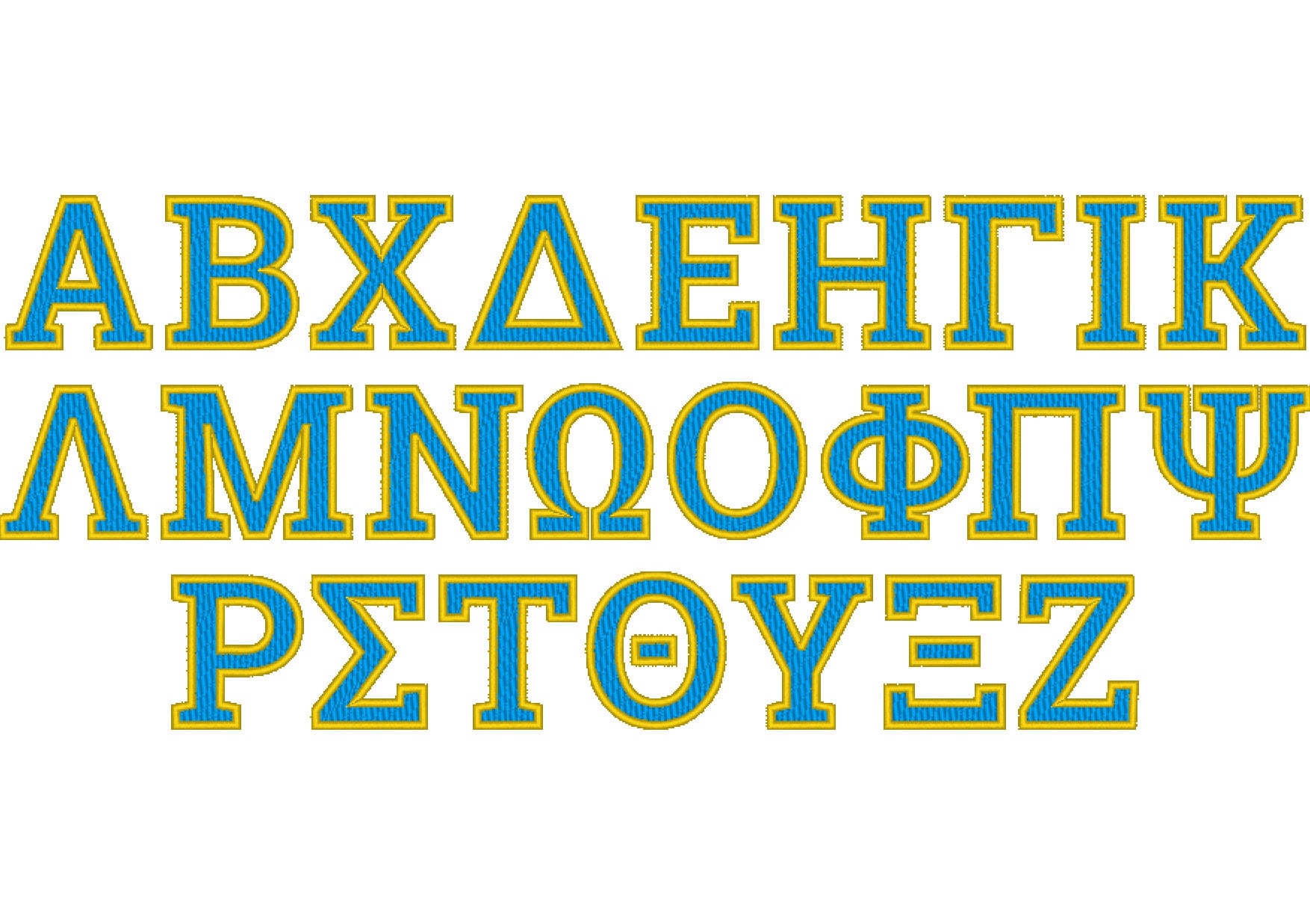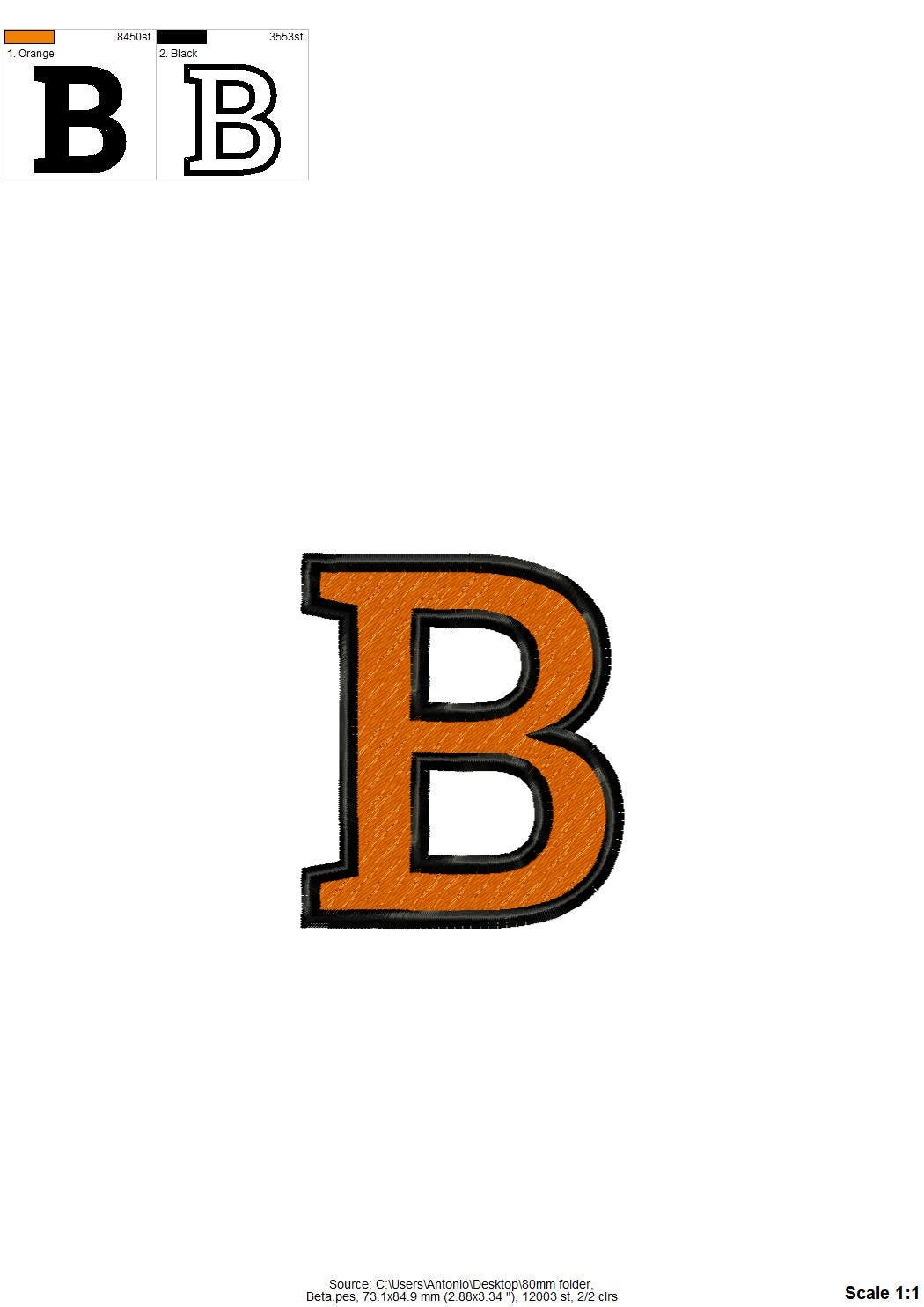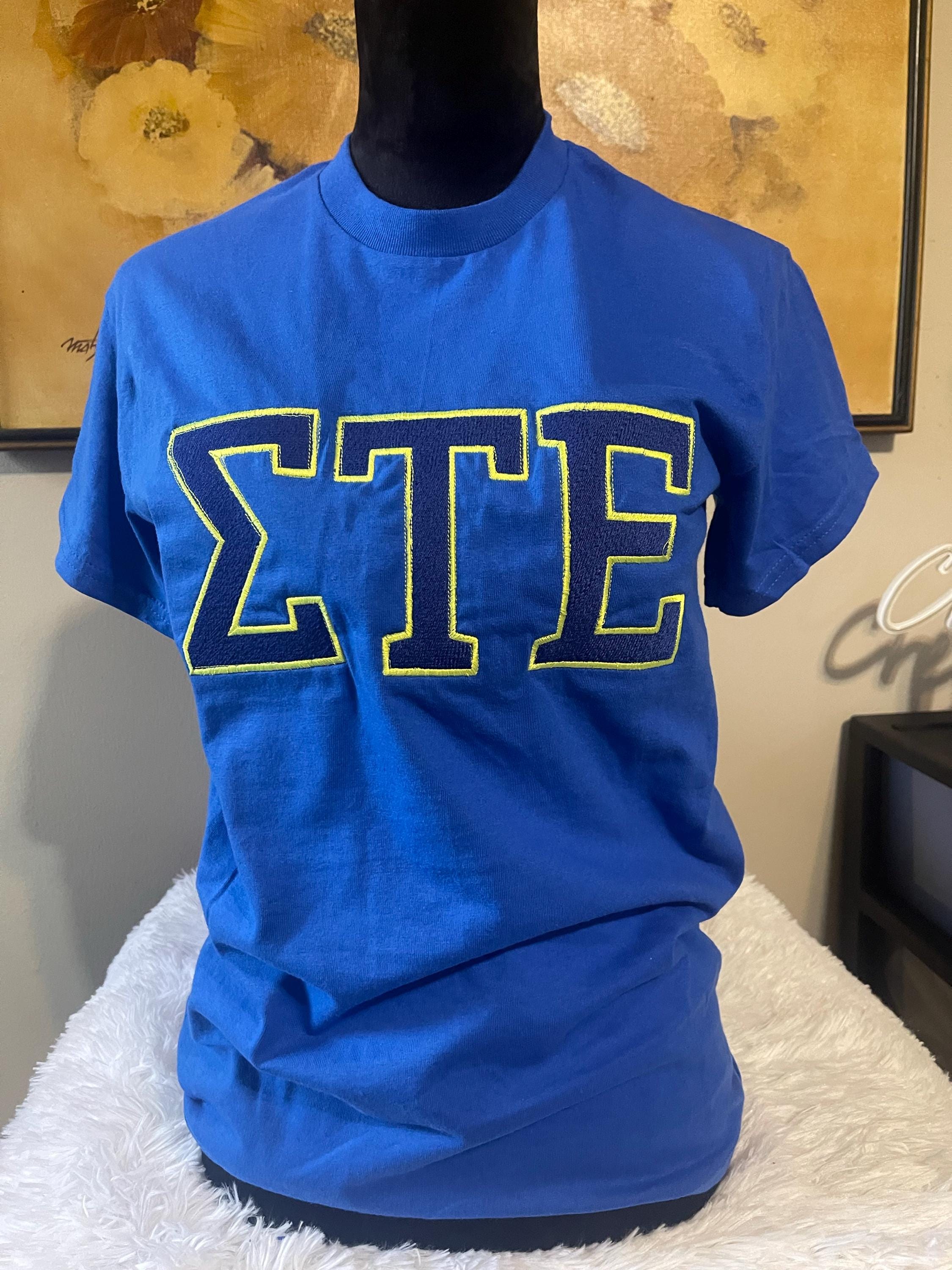
MINI fill stitch 2 colors Greek FONT alphabet sororities fraternities sport college team monogram machine embroidery designs 2 up to 5 inch
Fill stitch Greek letters have contrast outline.